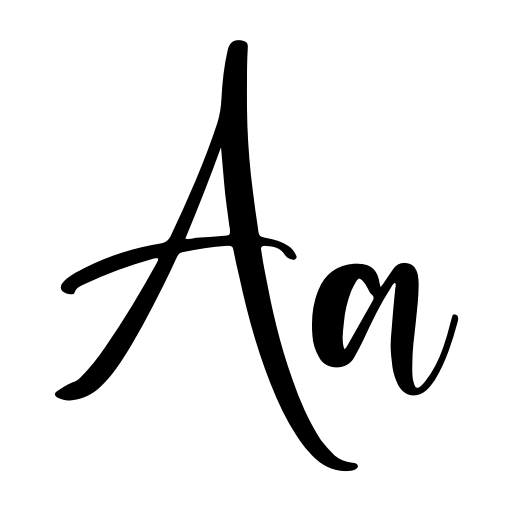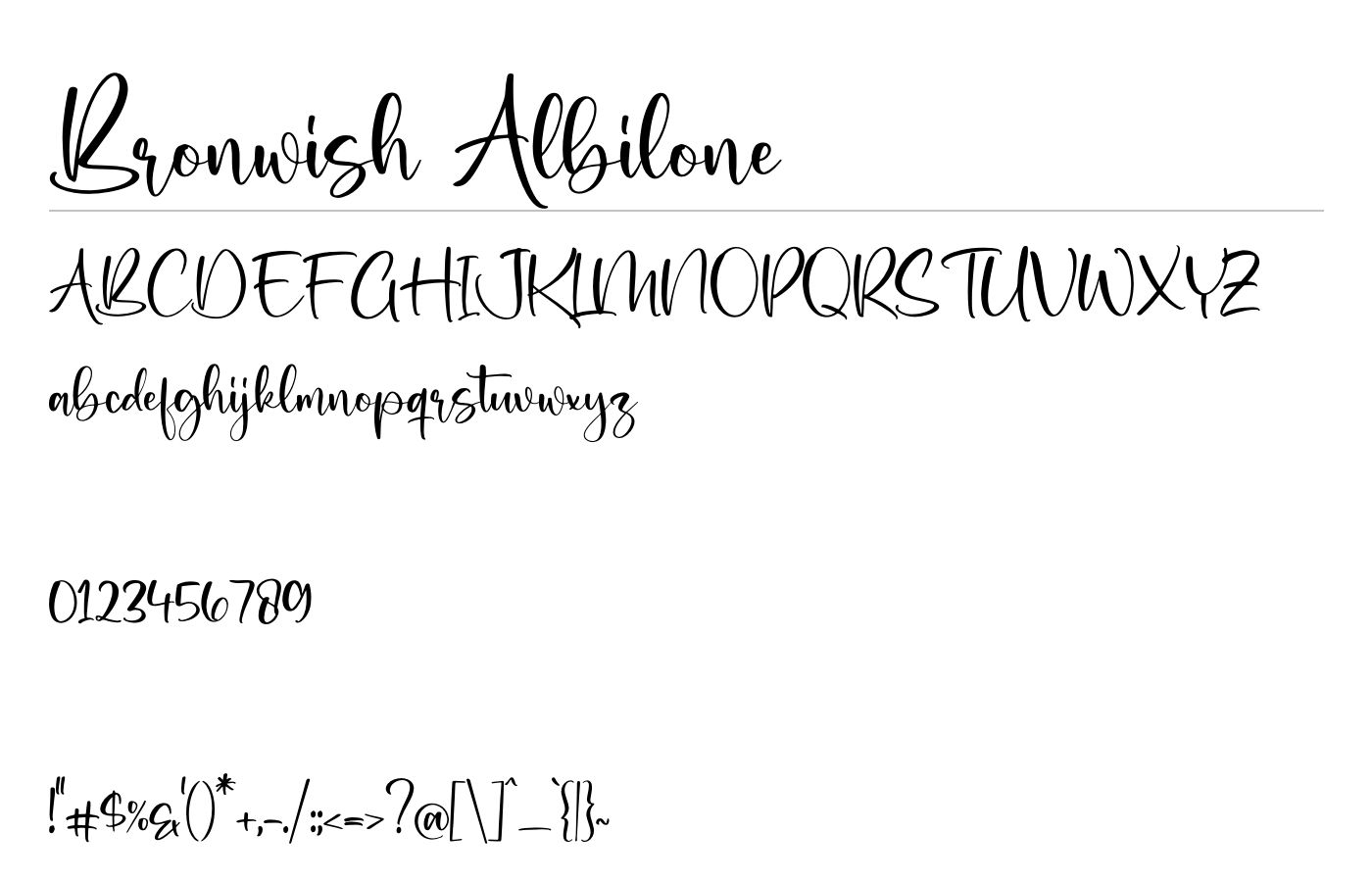
Bronwish Albilone is a delicate, handwritten script font with a light weight and elegant flow, featuring playful swashes and varied stroke widths that give it a natural, personal touch. Its tall x-height and fluid letterforms make it ideal for fashion branding, invitations, and creative headlines where a warm, stylish, and approachable feel is desired. This font works beautifully in designs that seek to combine sophistication with a casual, artistic flair.
Bronwish Albilone Font
About Bronwish Albilone Font